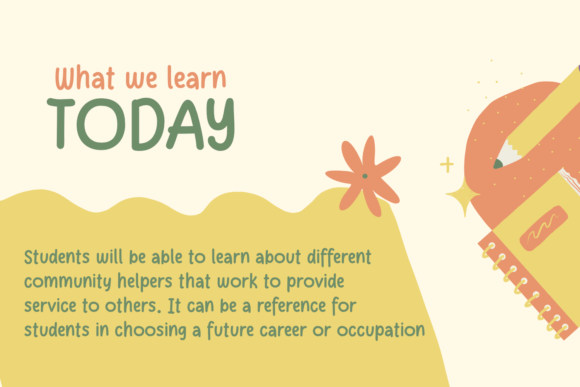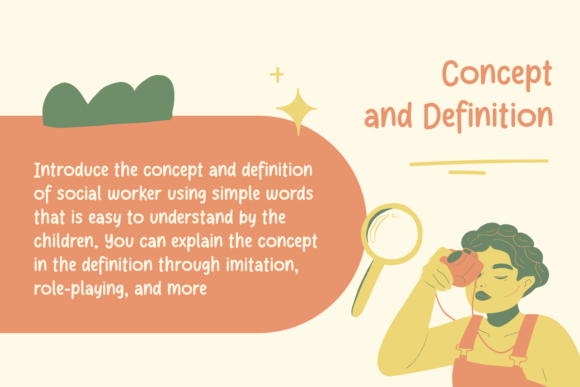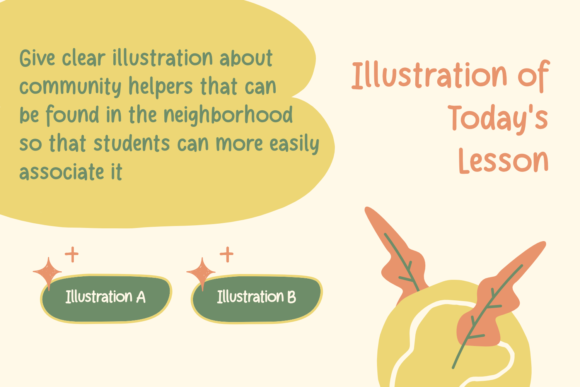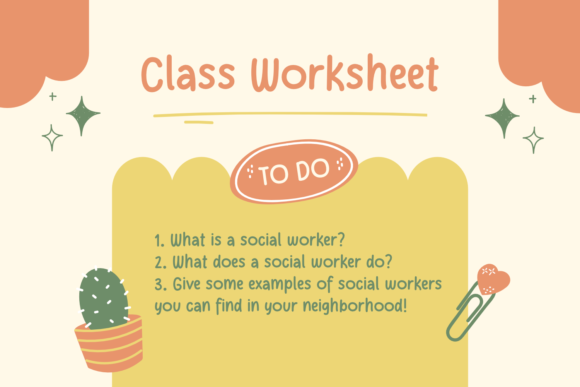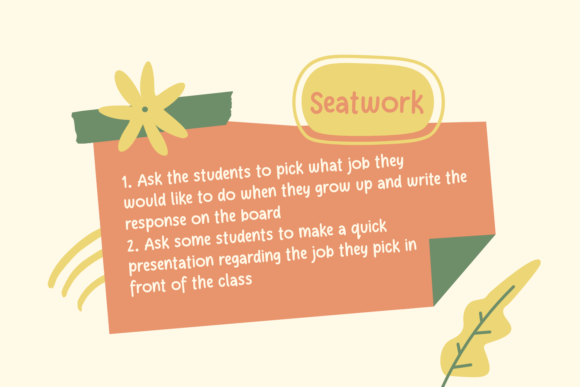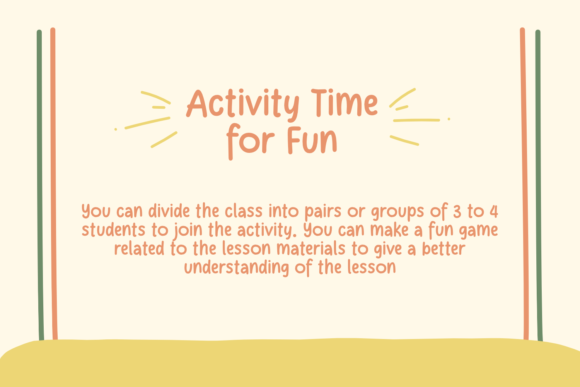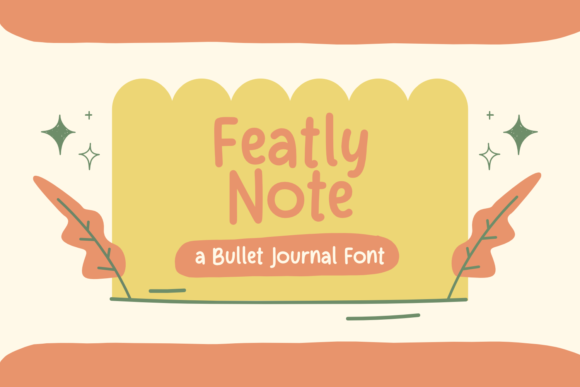
Introducing Featly Note Font: The Perfect Handwritten Font for Designers and Crafters
Are you a designer, crafter, or DIY enthusiast looking for a unique and versatile font to elevate your projects? Look no further than Featly Note Font, a beautiful bullet journal, block, natural handwritten font that’s perfect for a wide range of applications. In this article, we’ll explore the features and benefits of Featly Note Font, and show you how it can be used to take your designs to the next level.
What is Featly Note Font?
Featly Note Font is a carefully crafted, handwritten font that’s designed to mimic the natural flow and imperfections of handwriting. With its block, bullet journal-inspired style, this font is perfect for creating visually appealing and easy-to-read designs. Whether you’re working on a school project, creating SVG designs, stickers, or home decor items, Featly Note Font is the perfect choice.
Key Features of Featly Note Font
- Natural Handwritten Style: Featly Note Font has a unique, natural handwritten style that’s perfect for creating authentic and engaging designs.
- Bullet Journal Inspiration: With its block, bullet journal-inspired style, this font is perfect for creating layouts, journals, and planners.
- Versatile: Featly Note Font can be used for a wide range of applications, including school projects, SVG designs, stickers, home decor, quotes, headings, blogs, logos, invitations, and more!
- Easy to Read: The clear and concise style of Featly Note Font makes it easy to read, even at small sizes.
Uses for Featly Note Font
Featly Note Font is an incredibly versatile font that can be used for a wide range of projects and applications. Here are some ideas to get you started:
- School Projects: Use Featly Note Font to add a personal touch to your school projects, such as presentations, posters, and reports.
- SVG Designs: Create stunning SVG designs, such as cutting files, with Featly Note Font.
- Stickers: Design custom stickers with Featly Note Font for your laptop, water bottle, or journal.
- Home Decor: Use Featly Note Font to create beautiful home decor items, such as wall art, signs, and quotes.
- Blogs and Social Media: Add a personal touch to your blog or social media posts with Featly Note Font.
- Logos and Branding: Use Featly Note Font to create a unique and memorable logo or brand identity.
- Invitations: Design beautiful invitations for special occasions, such as birthdays, weddings, or baby showers.
Why Choose Featly Note Font?
With so many fonts available, why choose Featly Note Font? Here are just a few reasons:
- Unique Style: Featly Note Font has a unique, natural handwritten style that sets it apart from other fonts.
- High-Quality: This font is carefully crafted to ensure high-quality and clear readability.
- Versatile: Featly Note Font can be used for a wide range of applications and projects.
- Easily Customizable: This font can be easily customized to fit your specific design needs.
Featly Note Font is a beautiful, versatile, and unique handwritten font that’s perfect for designers, crafters, and DIY enthusiasts. With its natural, bullet journal-inspired style, this font can be used for a wide range of applications, from school projects to home decor. Whether you’re looking to add a personal touch to your designs or create a unique brand identity, Featly Note Font is the perfect choice. So why wait? Download Featly Note Font today and start creating stunning designs that stand out from the crowd!